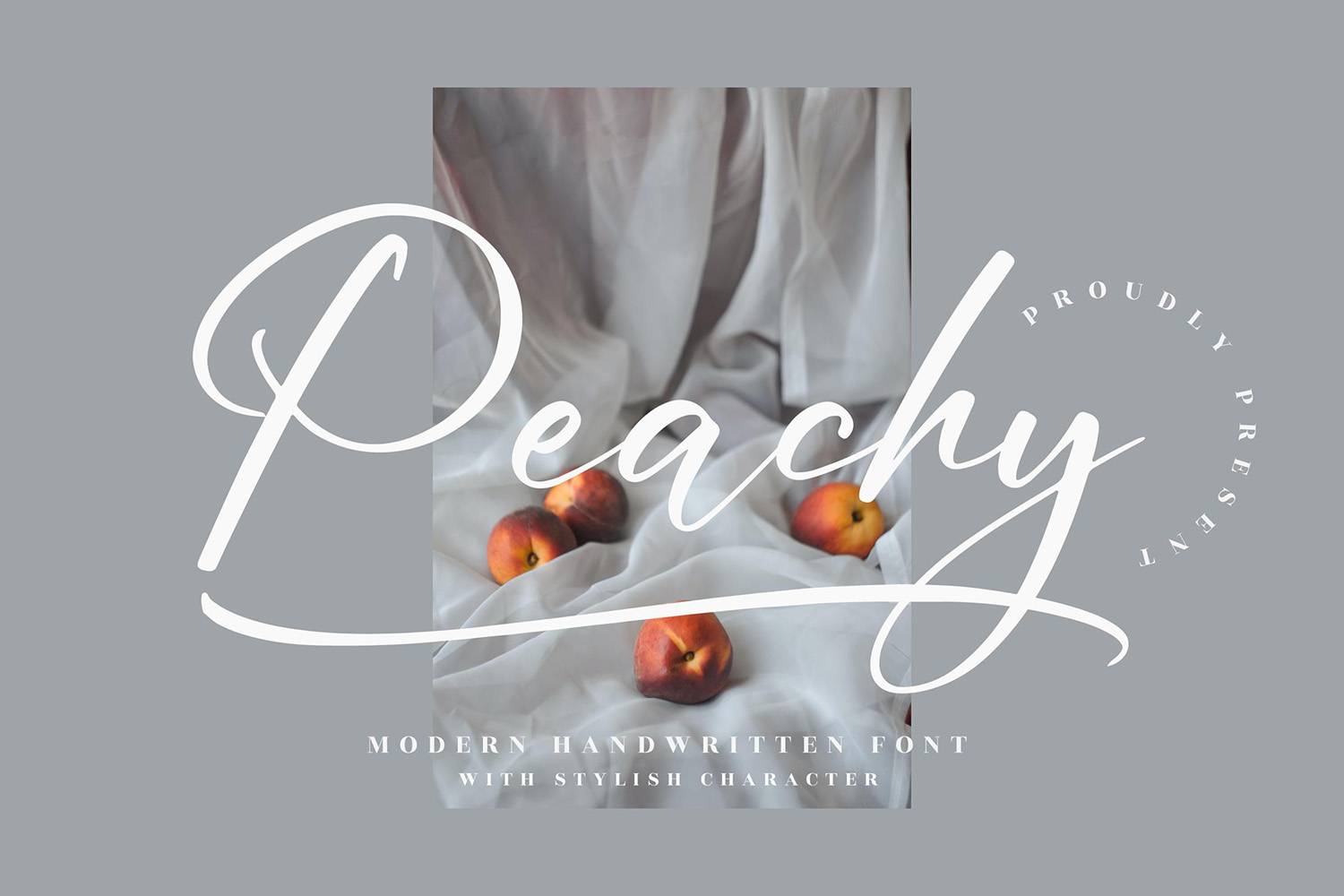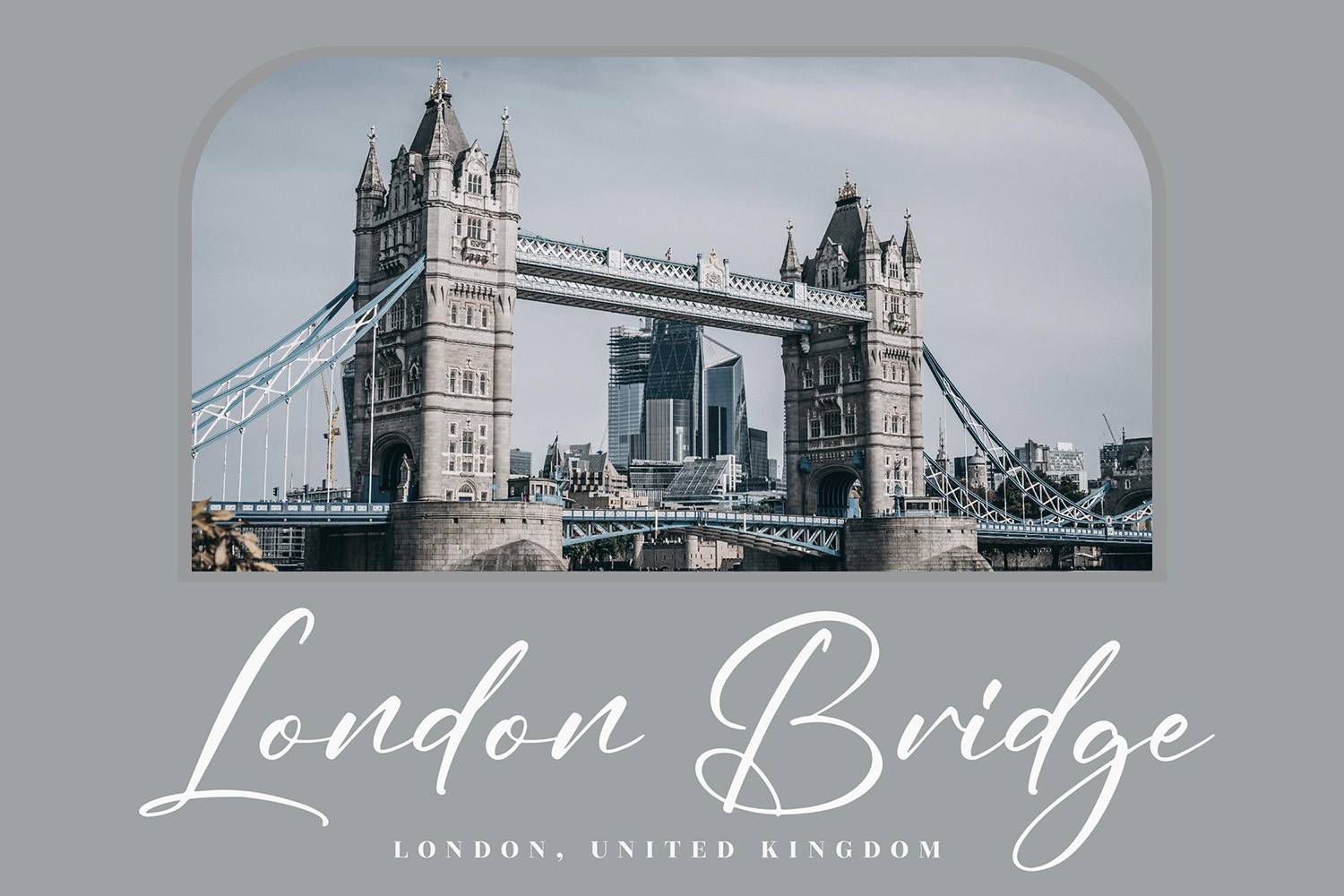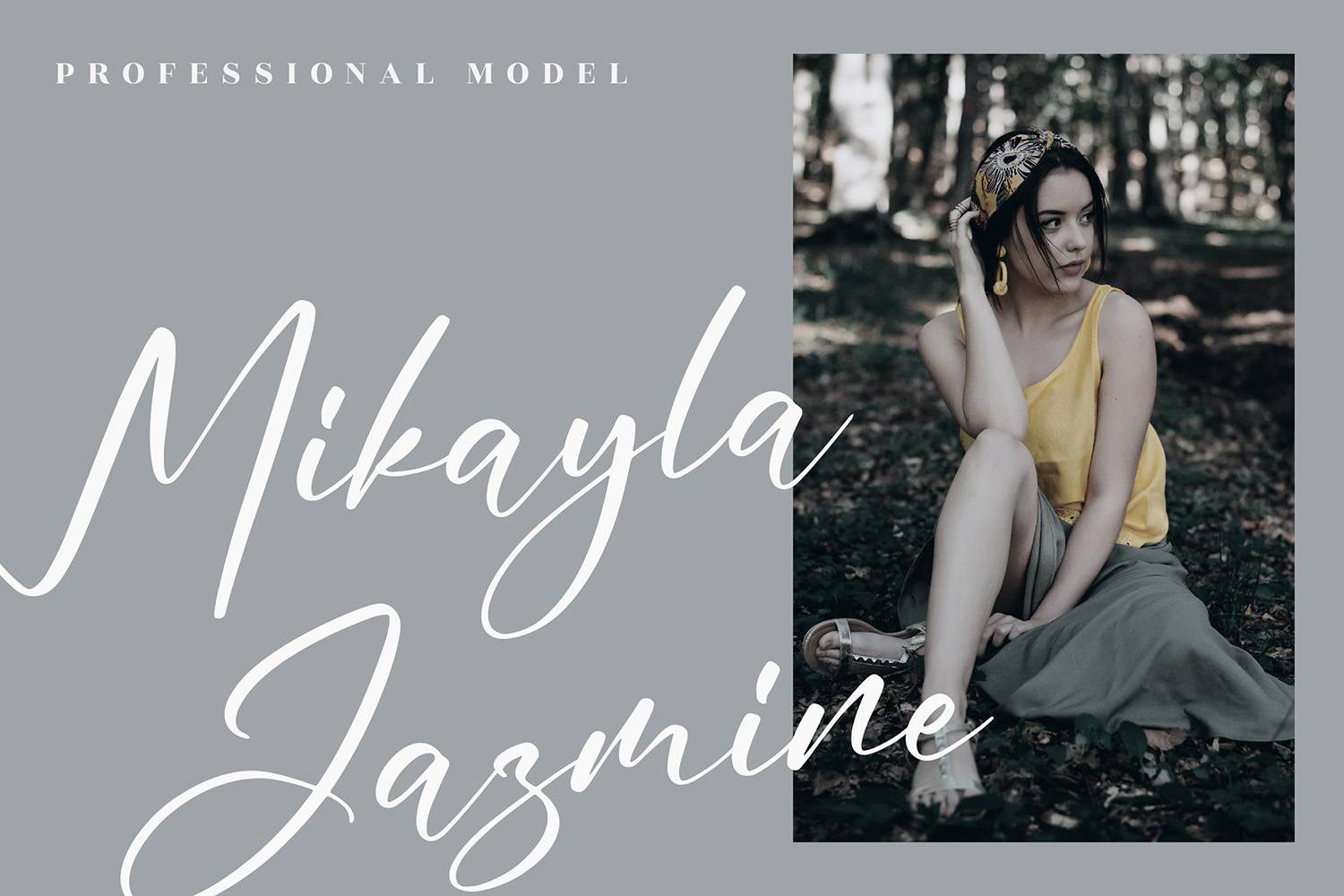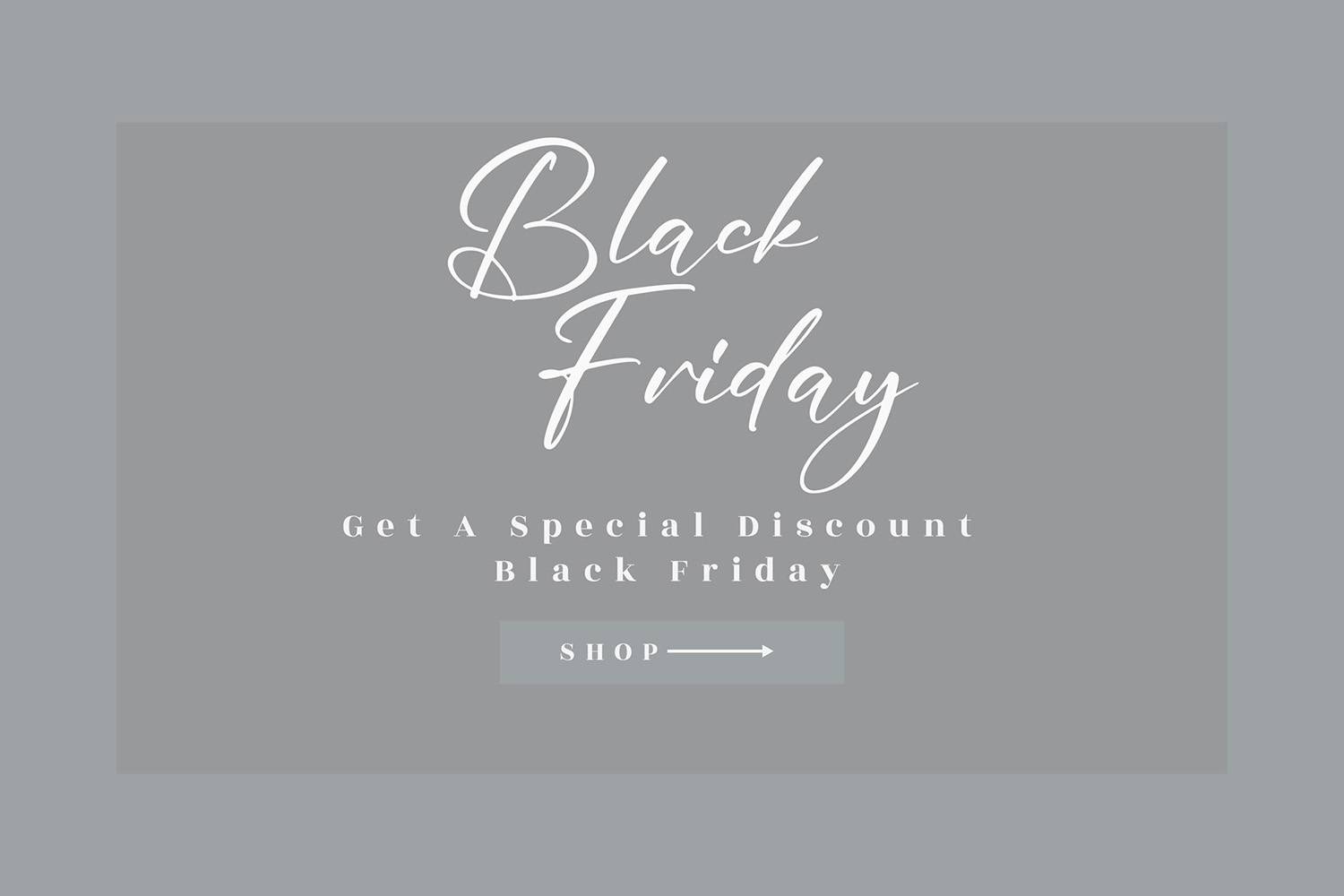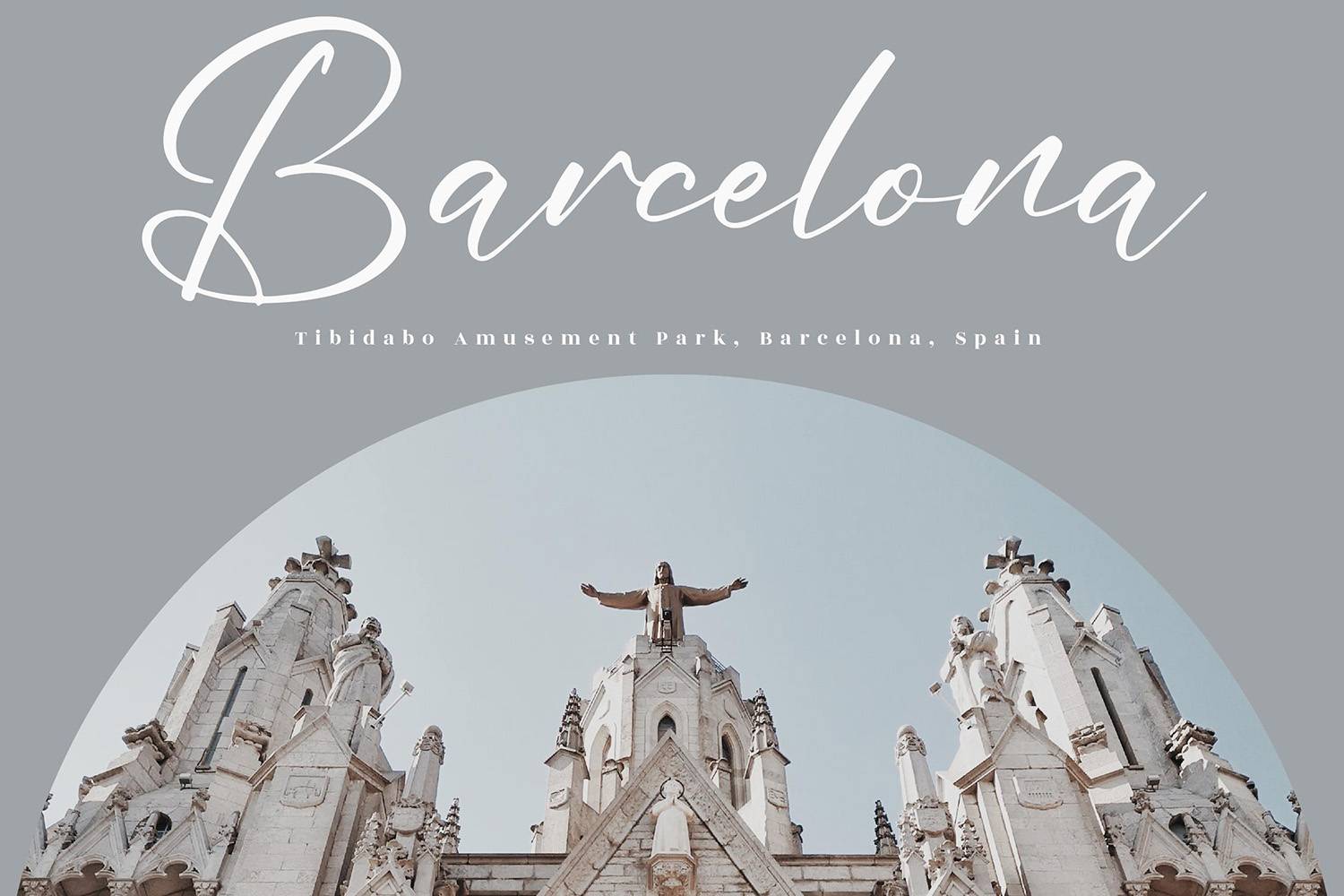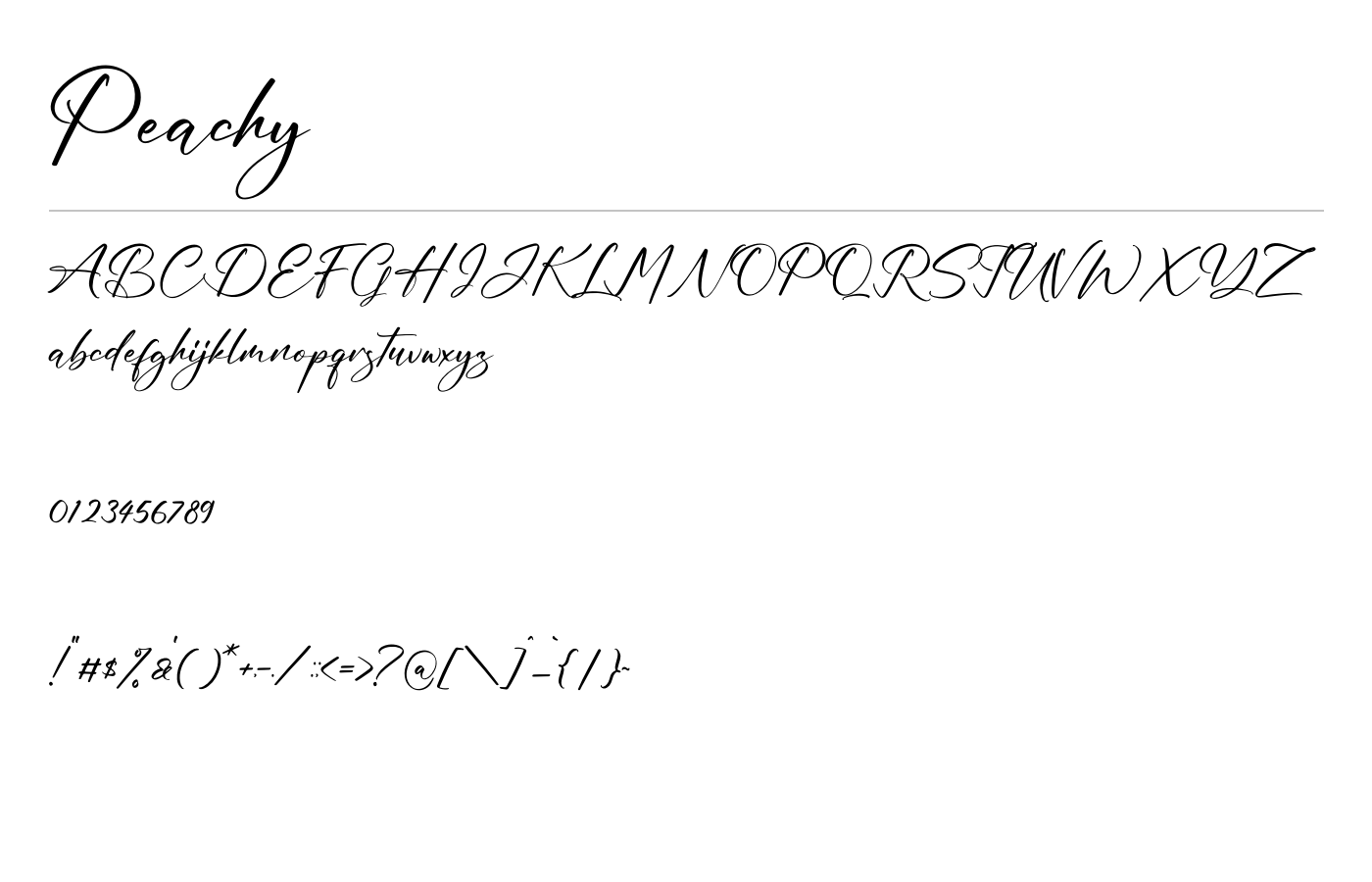
Peachy Font is an elegant and delicate script typeface with smooth, flowing strokes that convey a sense of sophistication and charm. Its slender, handwritten style with graceful curves and a slightly calligraphic touch makes it perfect for luxury branding, invitations, and feminine or romantic designs. This font works beautifully in headlines, logos, and packaging where a refined, stylish look is desired.
Peachy Font